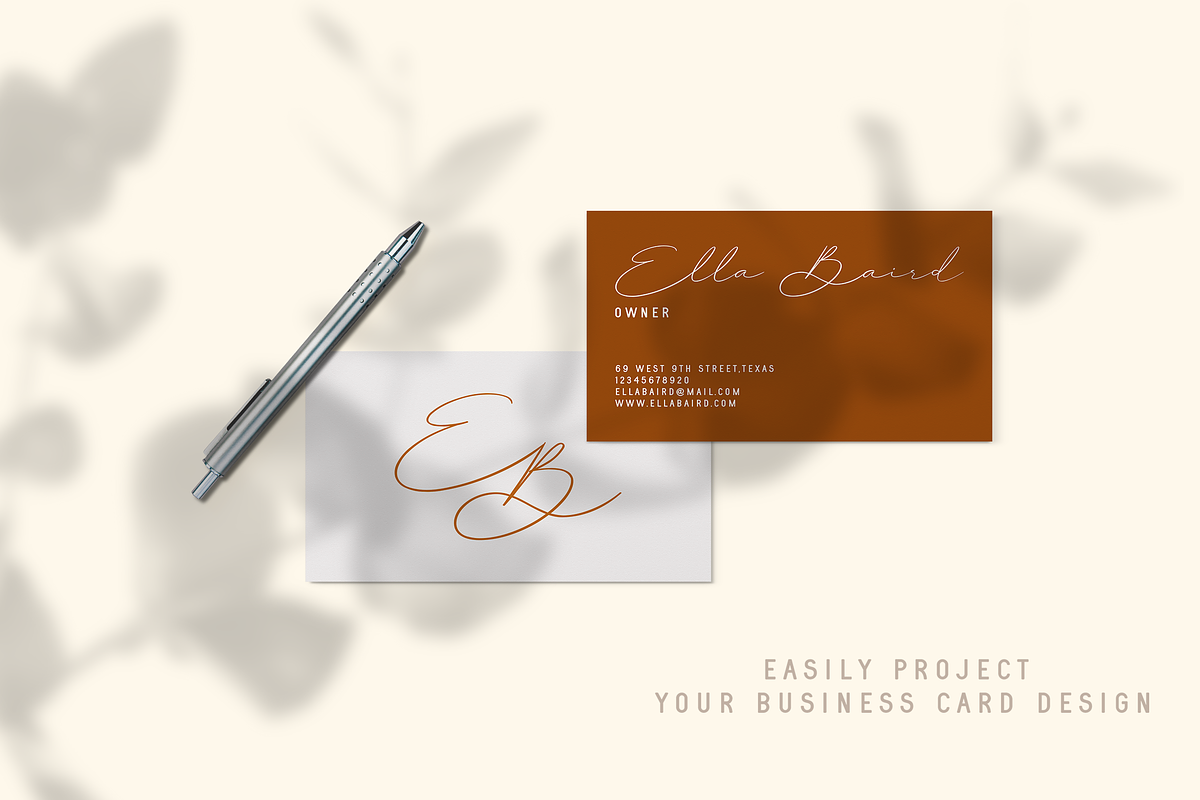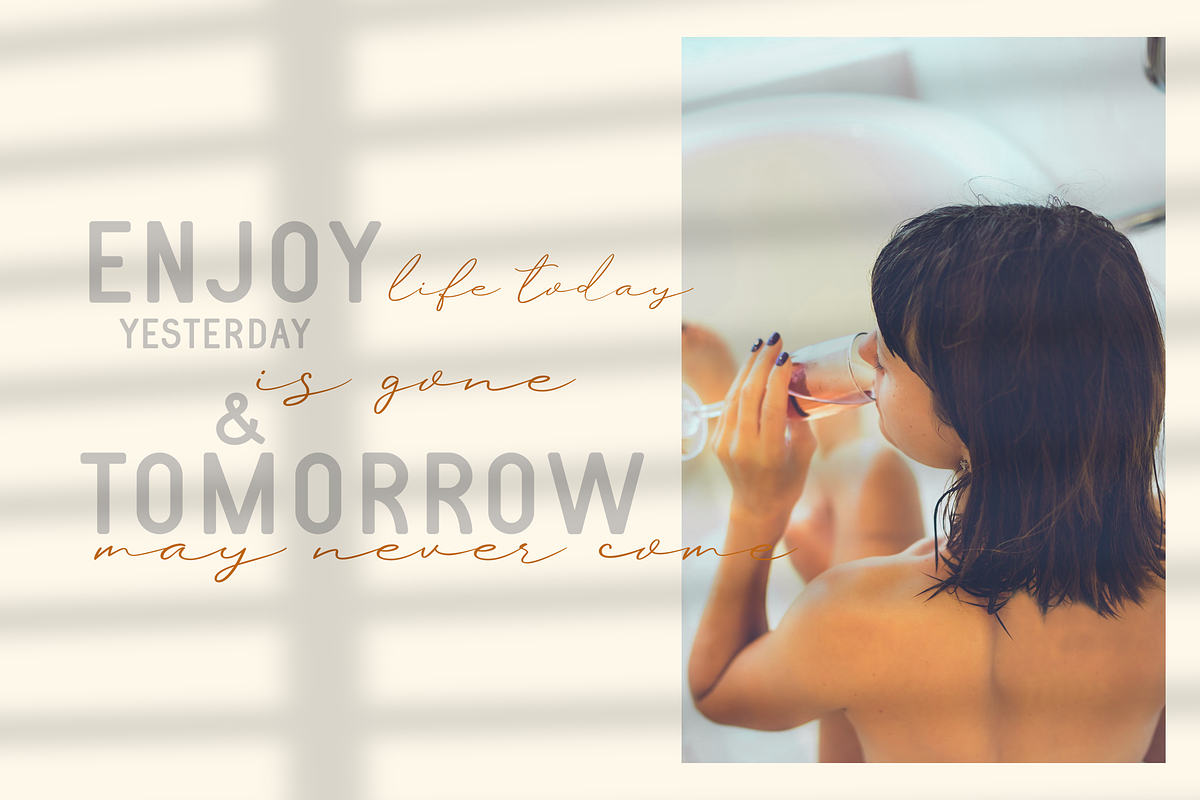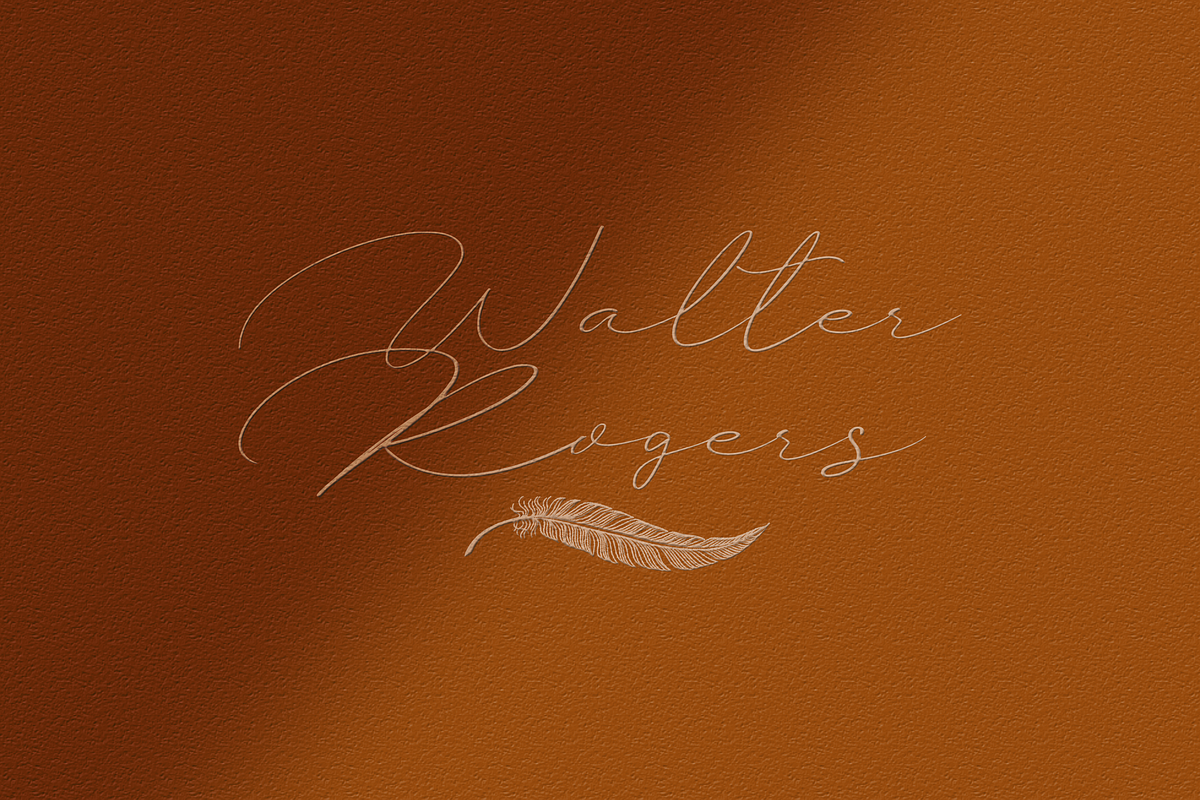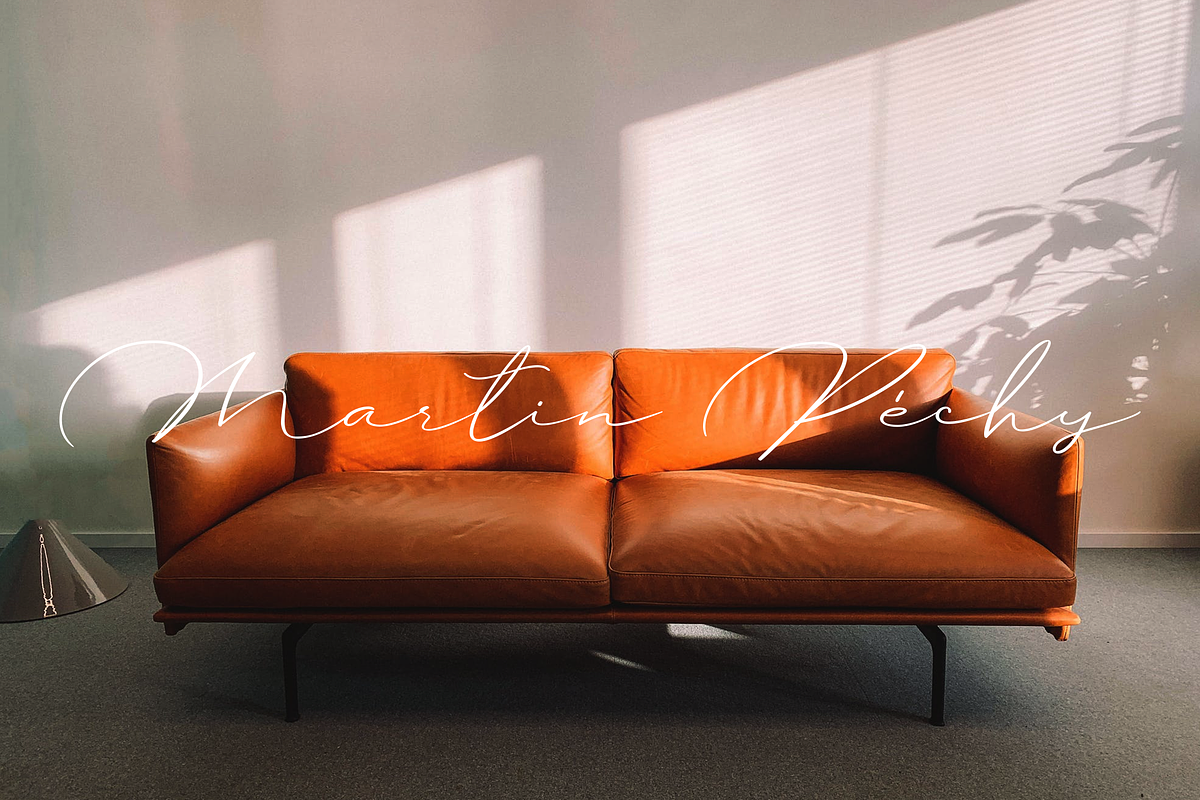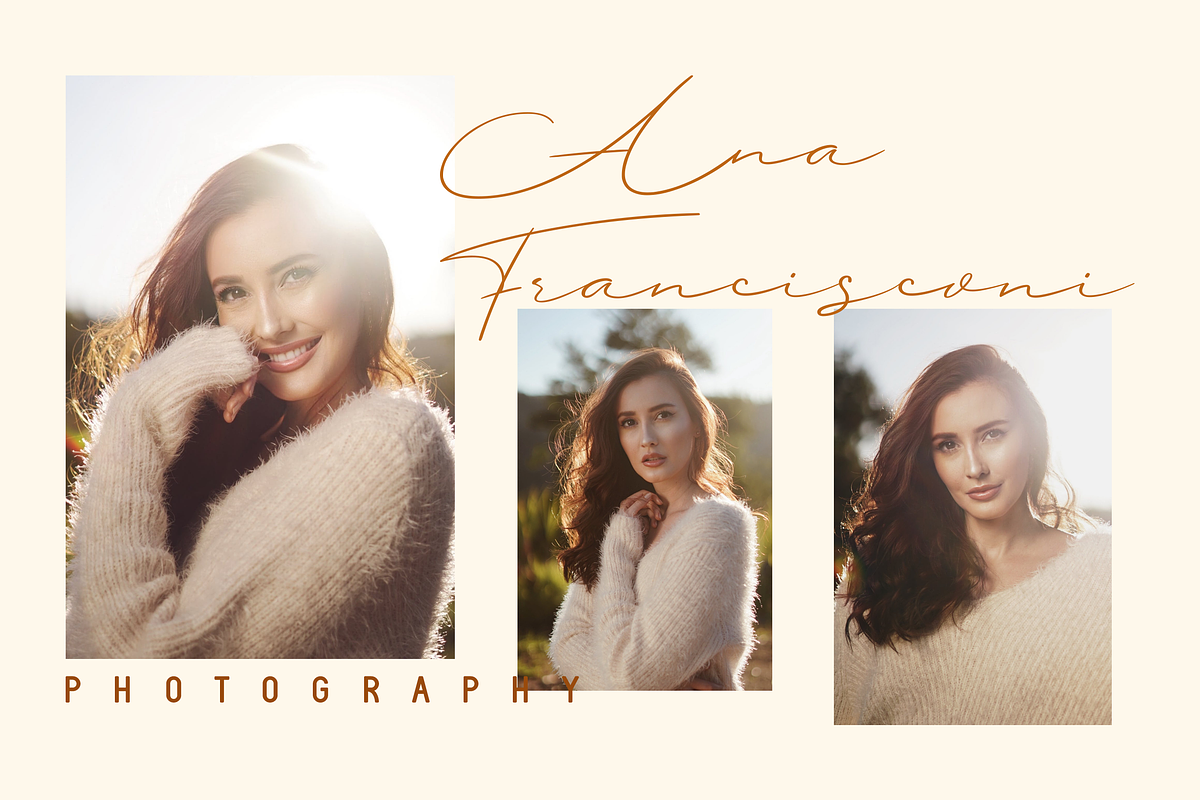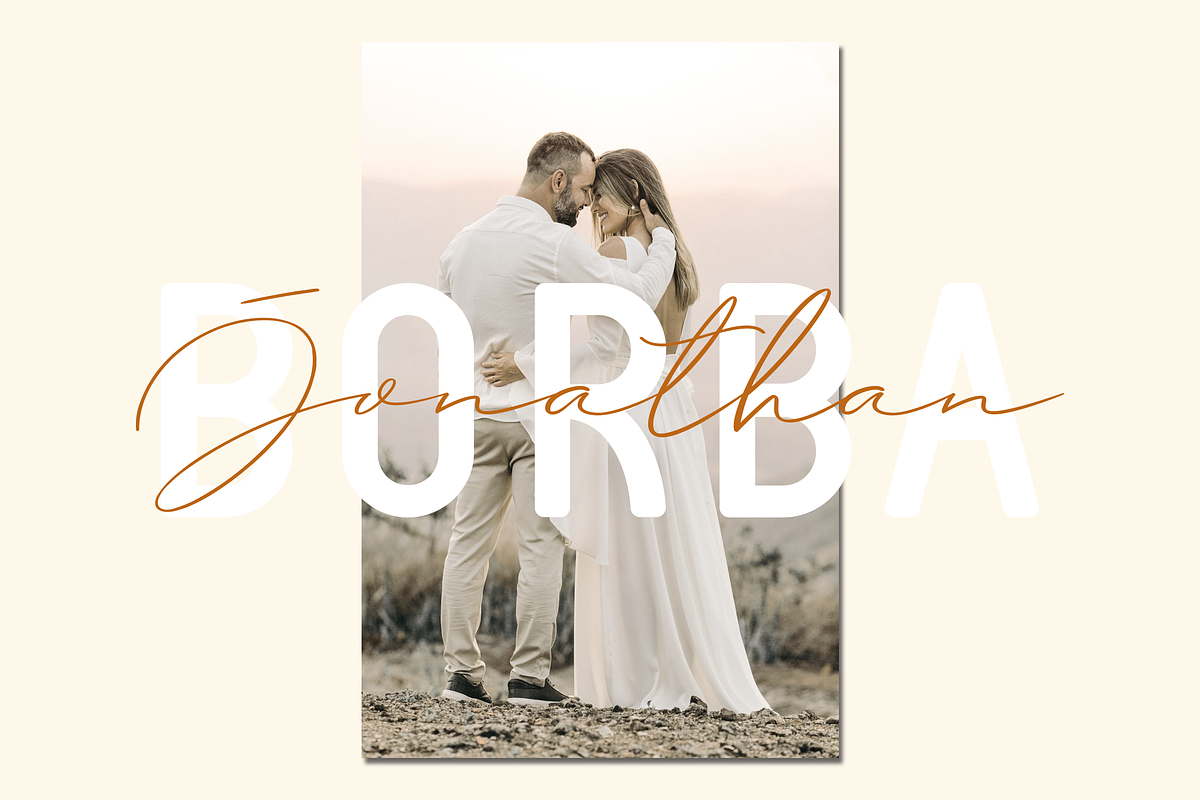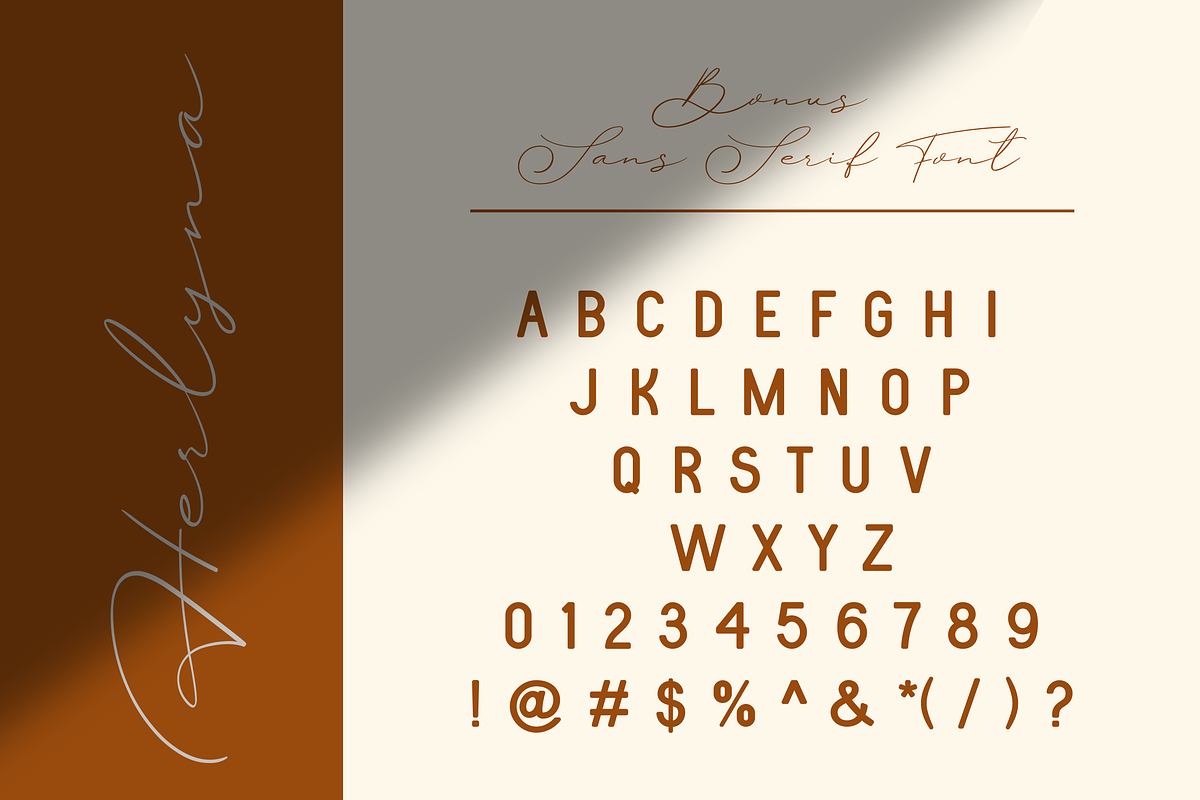
Herlyna // Signature Font + BONUS
Herlyna is a modern, stylish and elegant signature font.
Herlyna is perfect for all types of your design projects. Such as: watermarks, quotes, business cards and more.
Multilingual support - spread your message globally AÀÁÂÃÄÅCÇDÐEÈÉÌÍÎÏIÌÍÎÏNÑOØÒÓÔÕÖUÙÜÚÛWYÝŸÆßÞþ Encoded PUA Characters.